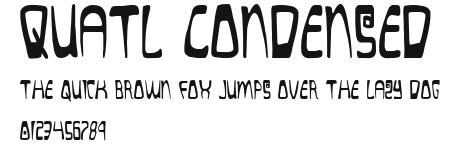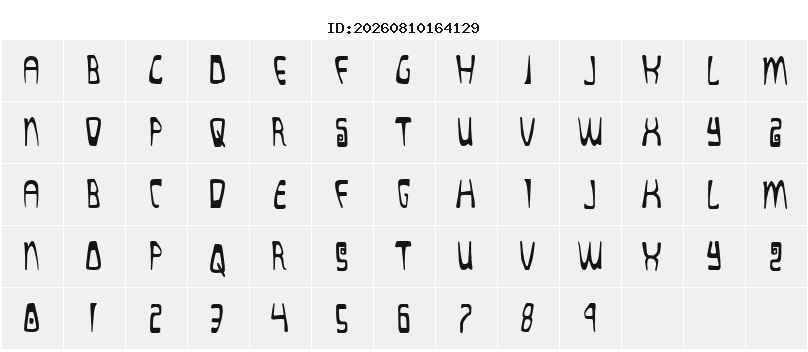
Quatl Condensed Preview
• Font Name: Quatl Condensed
• Font Style: Condensed
• Font ID: Quatl
• Full Font Name: Quatl Condensed
• Version: 1
• PostScript Name: QuatlCondensed
About Quatl Condensed.ttf
Quatl Condensed.ttf is a modern, elegant sans-serif font designed for ultimate readability and visual harmony. Perfect for branding, headlines, web design, and print materials.